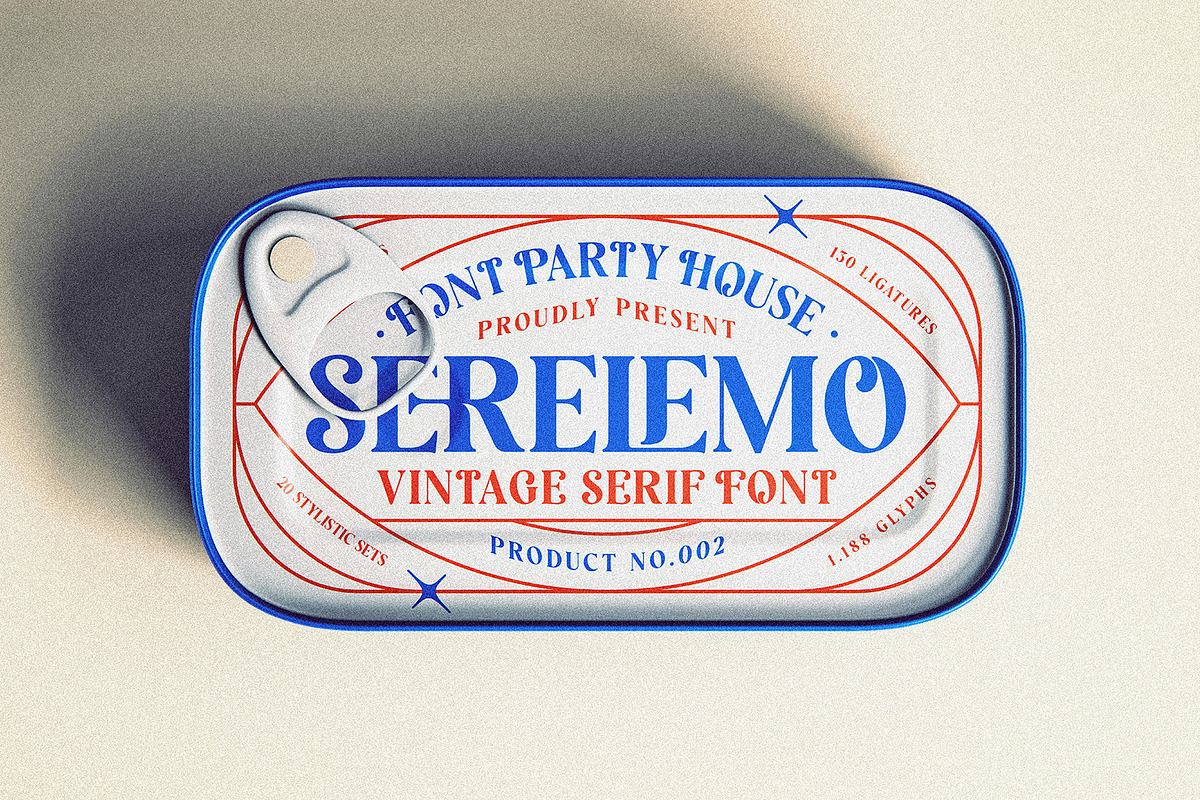
Serelemo - Vintage Serif Font Free Download
Add timeless elegance to your projects with Serelemo - Vintage Serif Font Free Download, a classic typeface inspired by traditional serif styles. You need to purchase this font for commercial use. However, you can explore its charm in personal or demo projects with Serelemo - Vintage Serif Font Free Download. Featuring refined serifs and a nostalgic touch, this font is perfect for editorial layouts, logos, packaging, and branding that calls for a vintage yet sophisticated look. Designers love its balanced proportions and old-world flair. Download Serelemo - Vintage Serif Font Free Download today and enrich your creative work with heritage and style.